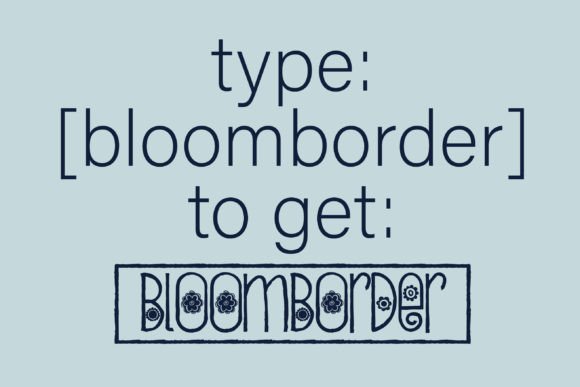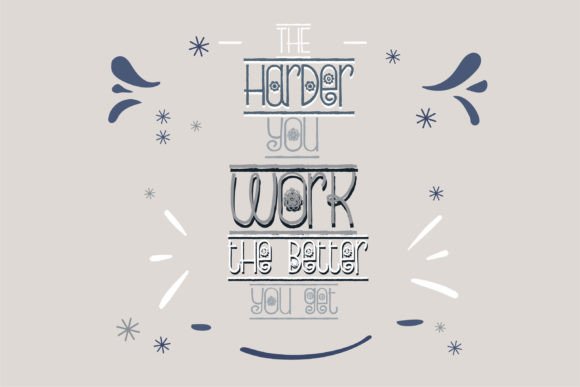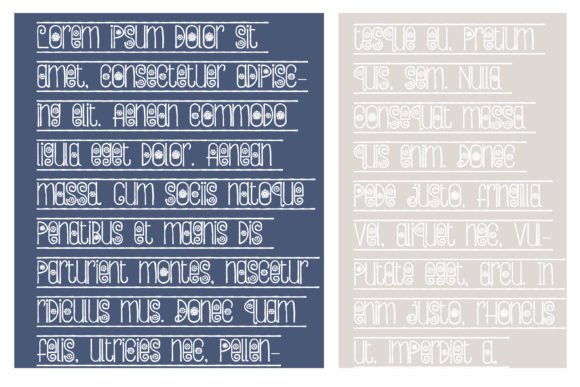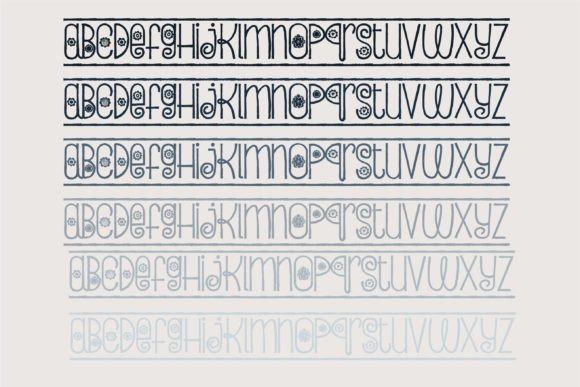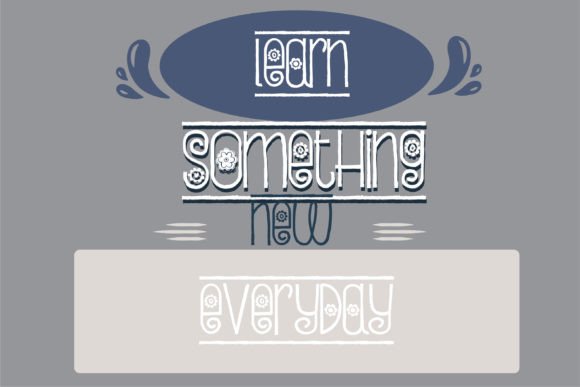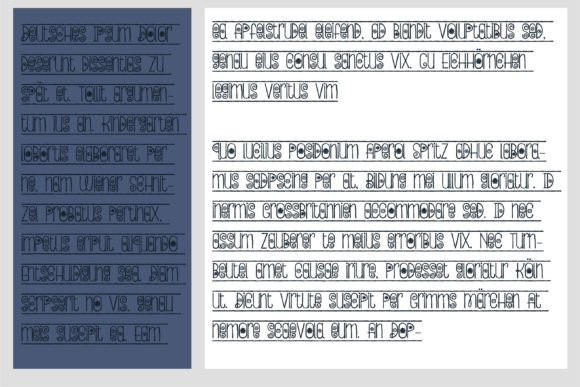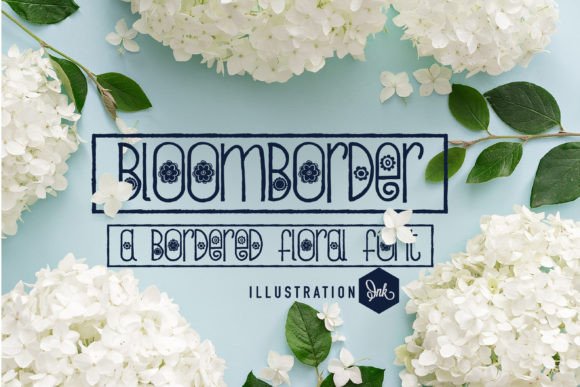
The Blooming Beauty of Bloomborder Font
I’ll never forget the design project that led me to discover the charming Bloomborder font. I was working on a whimsical branding campaign for a local florist, and I was on the hunt for a font that would capture the playful, yet elegant essence of their brand. As I scrolled through font after font, I stumbled upon Bloomborder, and it was love at first sight! 💐
This fun and unique handwritten font has lines surrounding it and is dotted with flowers throughout, making it the perfect fit for my project. But what really drew me in was its versatility – it looks incredibly adept in a wide variety of contexts, from wedding invitations to social media graphics.
• ✨ Unique and playful design with floral accents
• ✅ Easy to read and understand, even in smaller sizes
• 💻 Highly versatile and adaptable to different contexts
• 🎨 Beautiful OpenType features and glyphs to enhance design
While Bloomborder is an amazing font, there are a few things to keep in mind 🤔:
• ⚠️ The font can be a bit quirky, so it may not be the best fit for very formal or traditional designs
• ⚠️ Some of the glyphs and special characters can be a bit finicky to access
4. Use the rectangle brackets to box off your words and underscore for a blank area of double lines
The Story Behind Bloomborder
Bloomborder was designed with the intention of creating a unique and playful font that would bring a touch of whimsy to any design. The designer wanted to create a font that would evoke the feeling of a garden in bloom, with delicate flowers and vines woven throughout the letters. The result is a font that’s both elegant and quirky, perfect for designers who want to add a little extra something to their work.
Q: What makes Bloomborder so special?
A: Bloomborder’s unique design, with lines surrounding the letters and floral accents throughout, makes it stand out from other fonts.
Q: Is Bloomborder suitable for formal designs?
A: While Bloomborder is a beautiful font, it may not be the best fit for very formal or traditional designs due to its playful and whimsical nature.